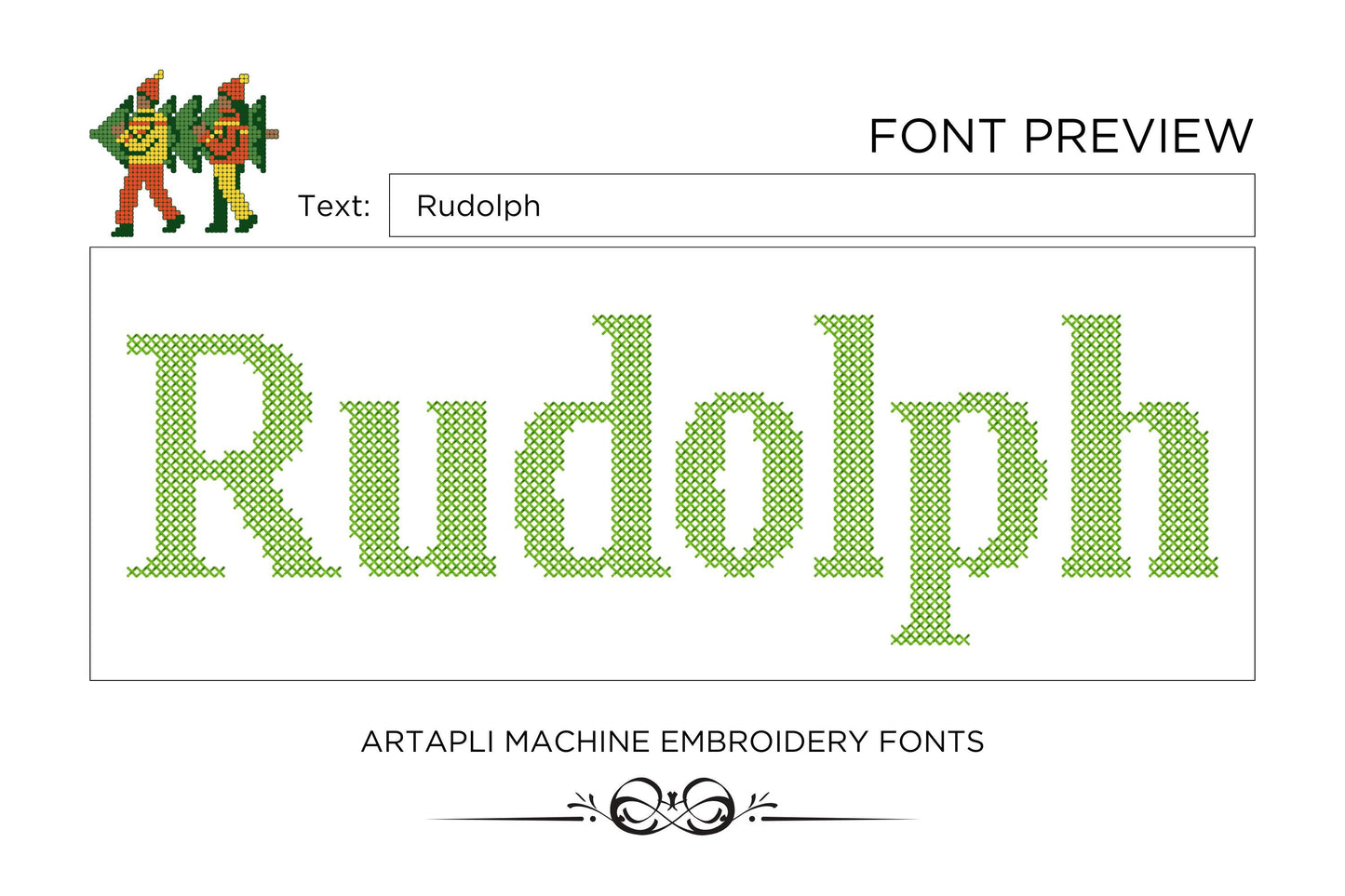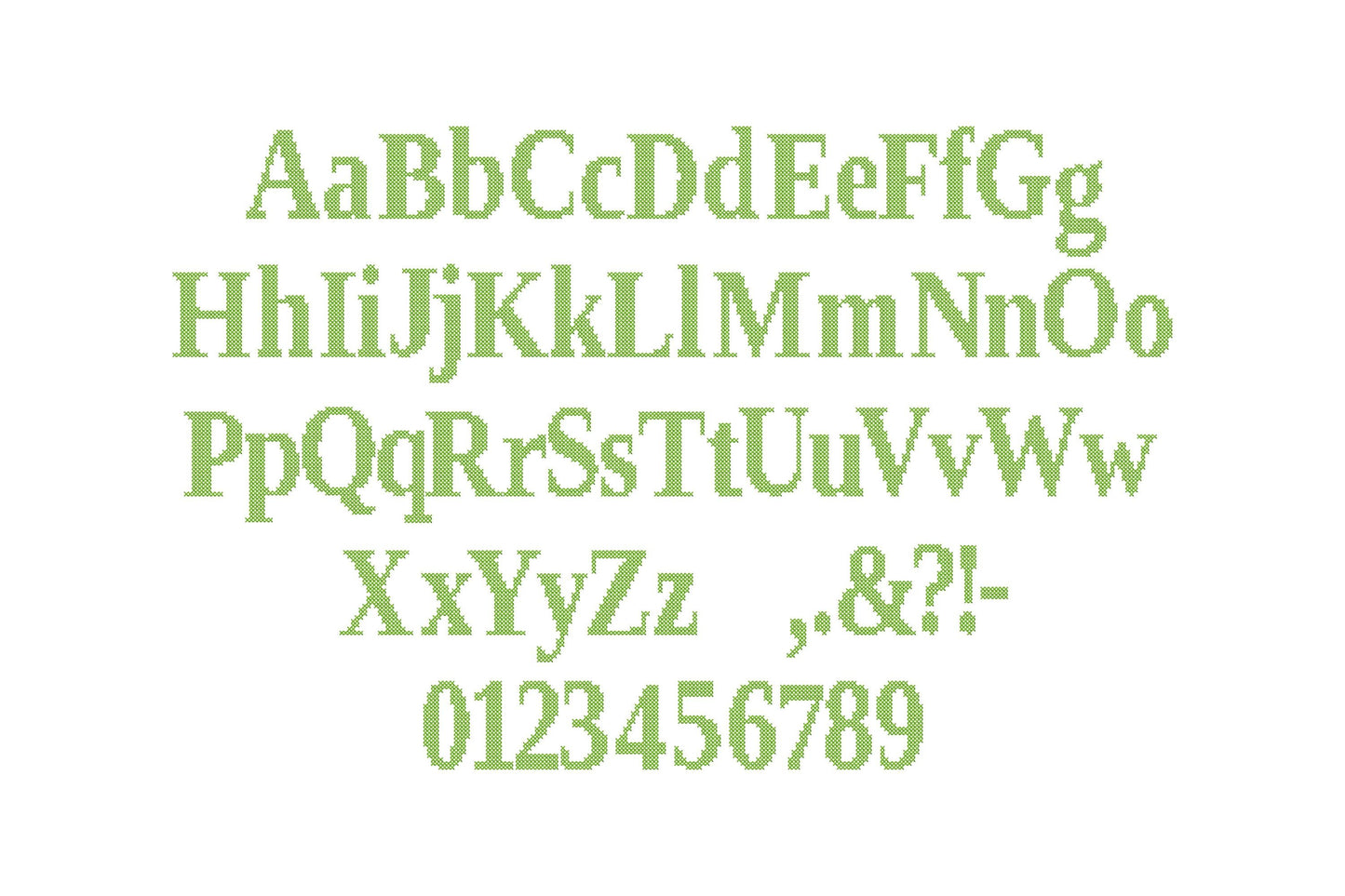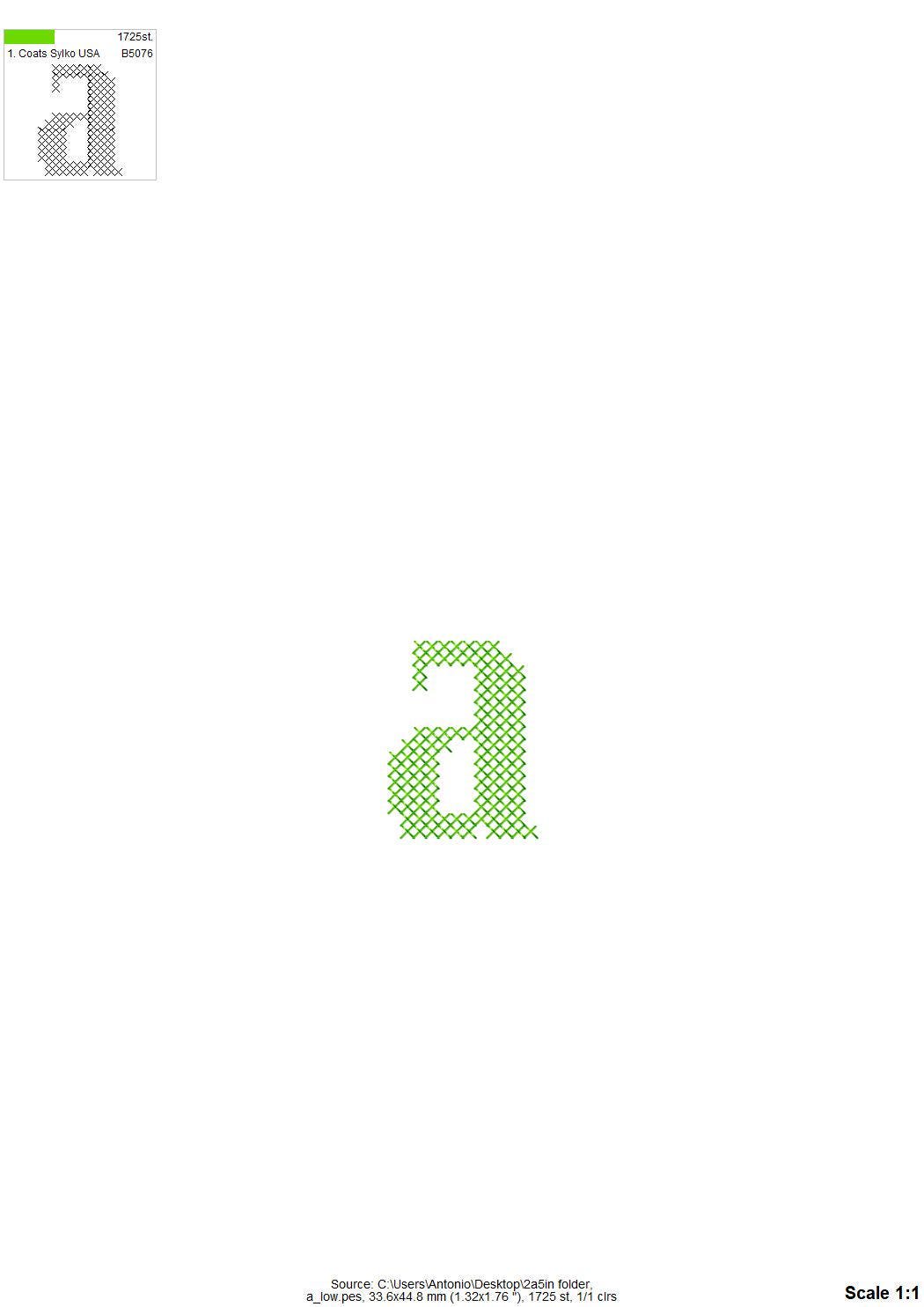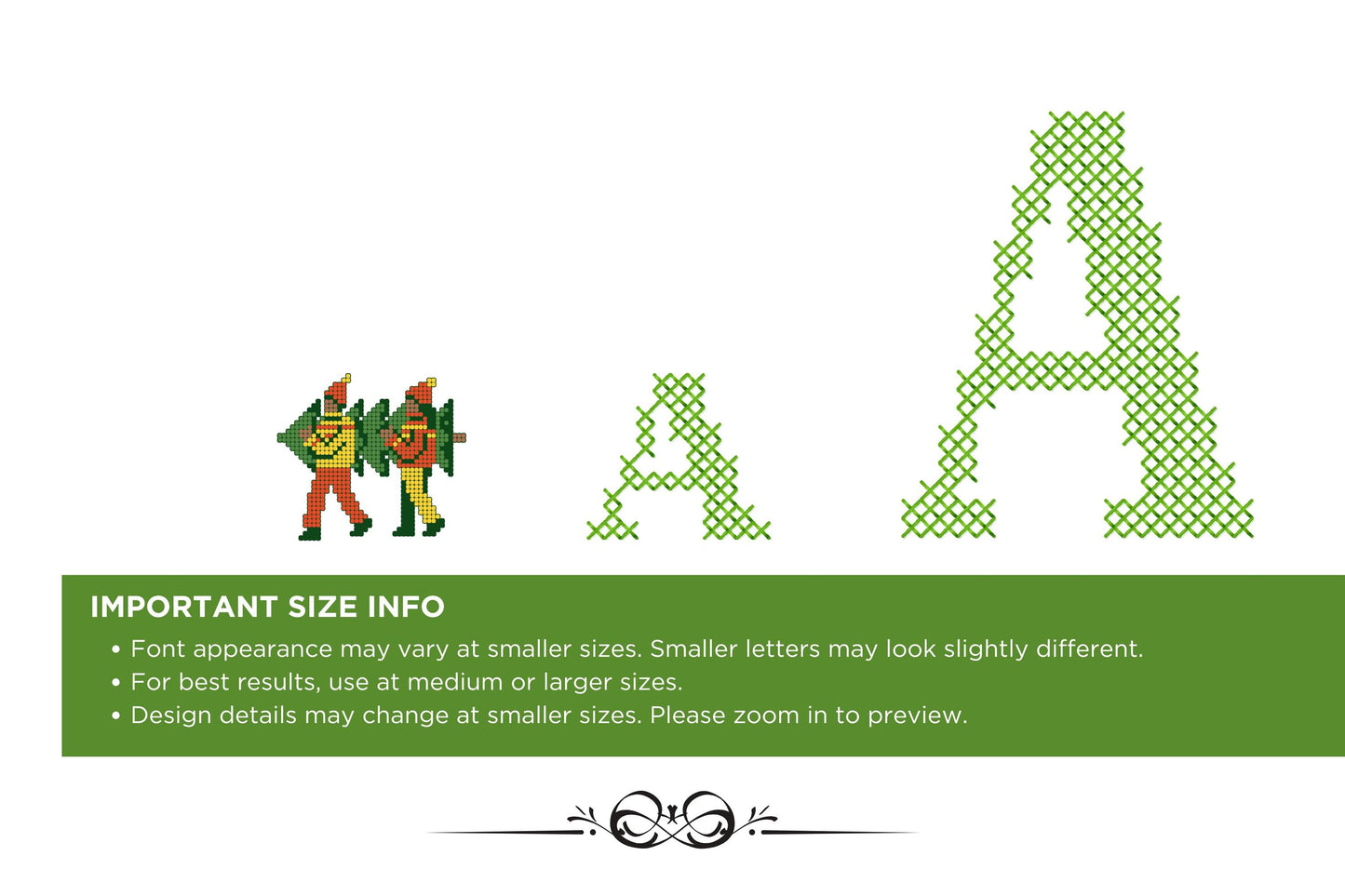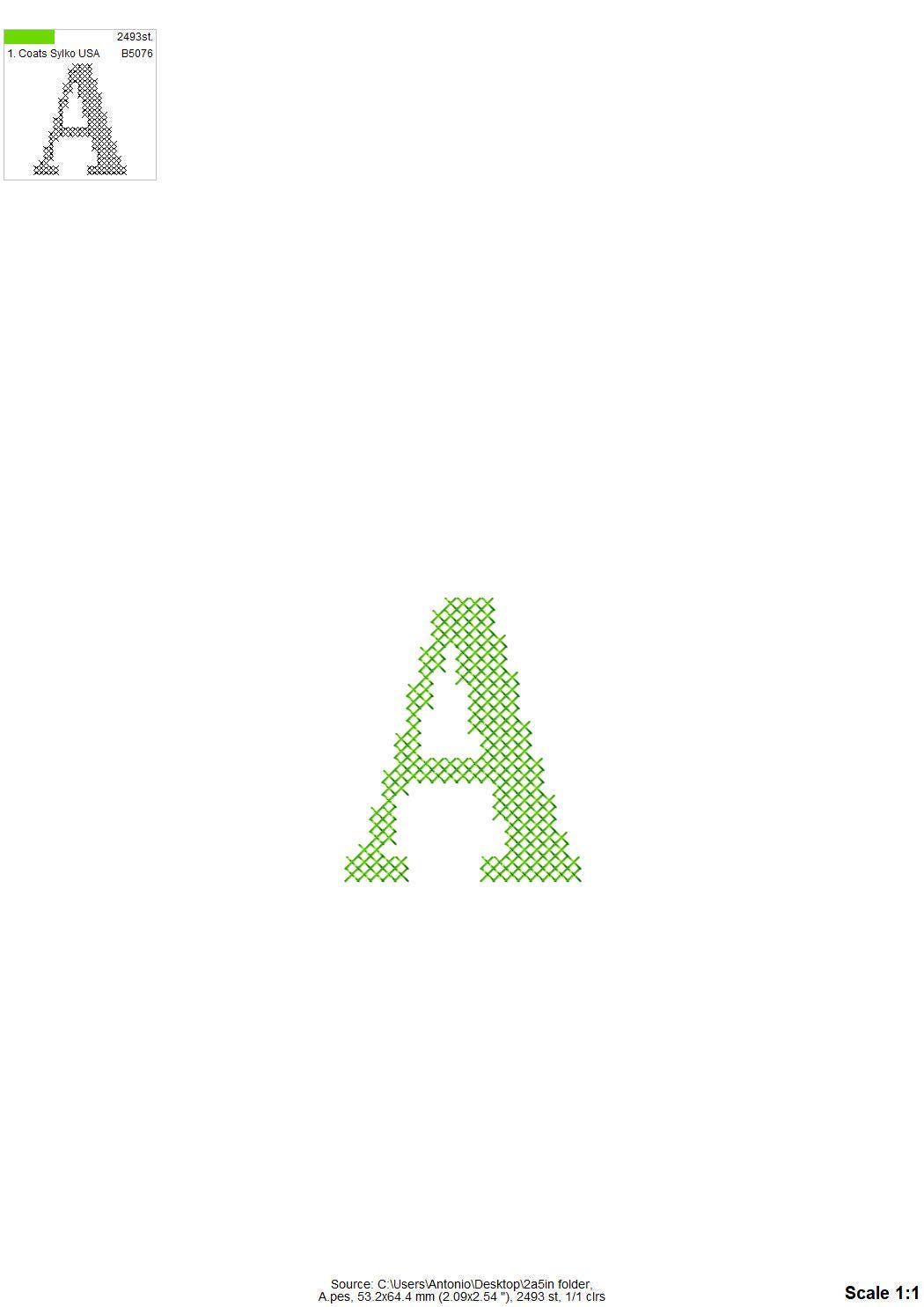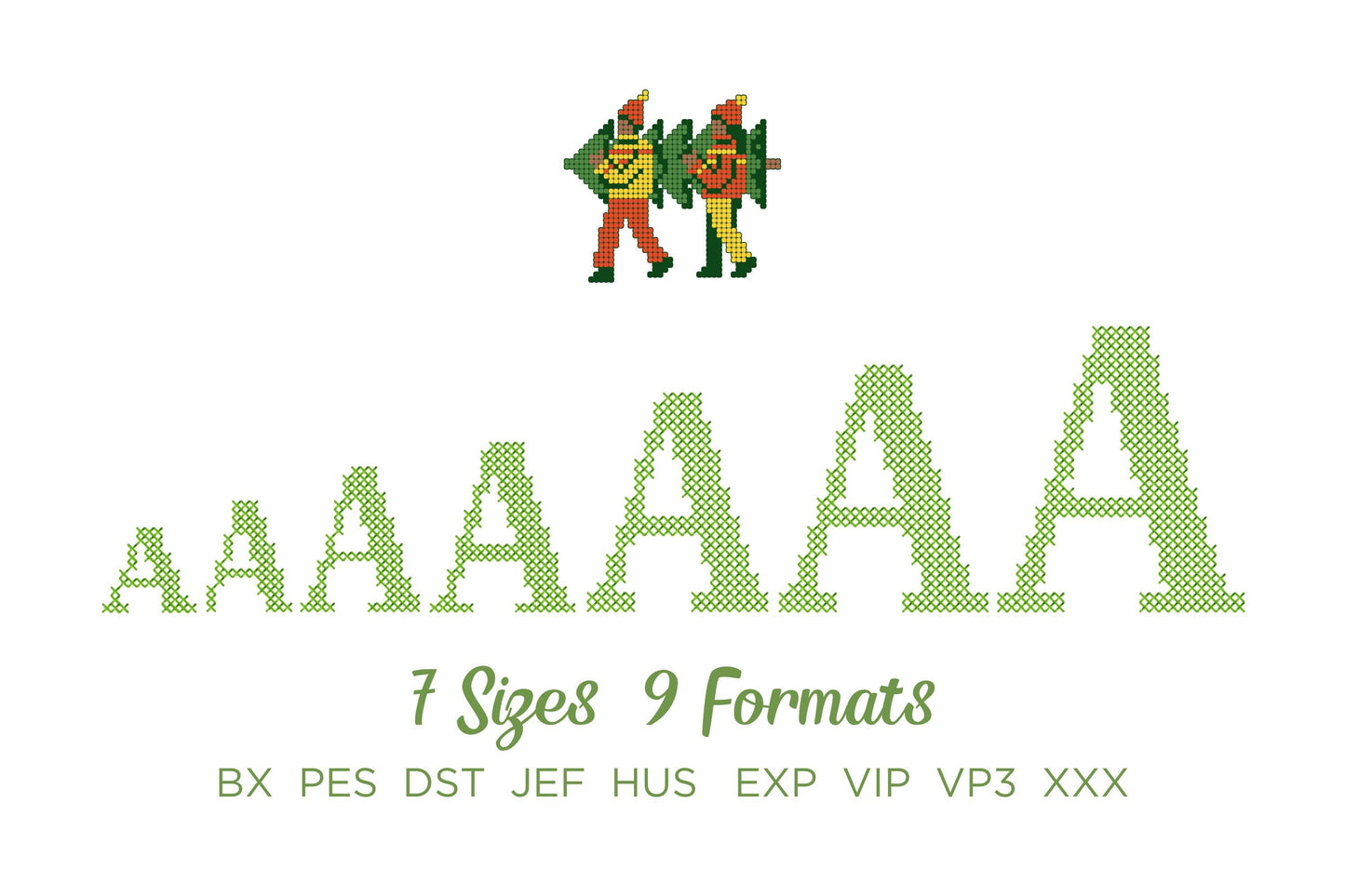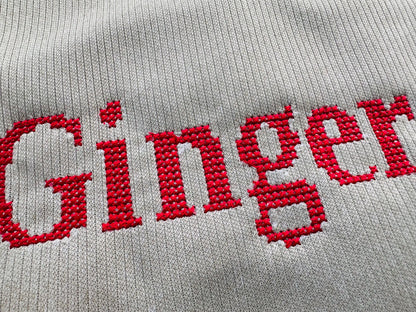
Christmas Cross Stitch Font
A classic block font stitched in real cross stitch style. Lovely for Christmas stockings, ornaments, towels and holiday monograms.
Uppercase and lowercase letters, numbers 0 to 9 and punctuation. Seven sizes: 1, 1.3, 1.7, 2, 2.5, 2.9 and 3.3 inches. The medium and larger sizes show the cross stitch pattern best.
• Cross stitch block font